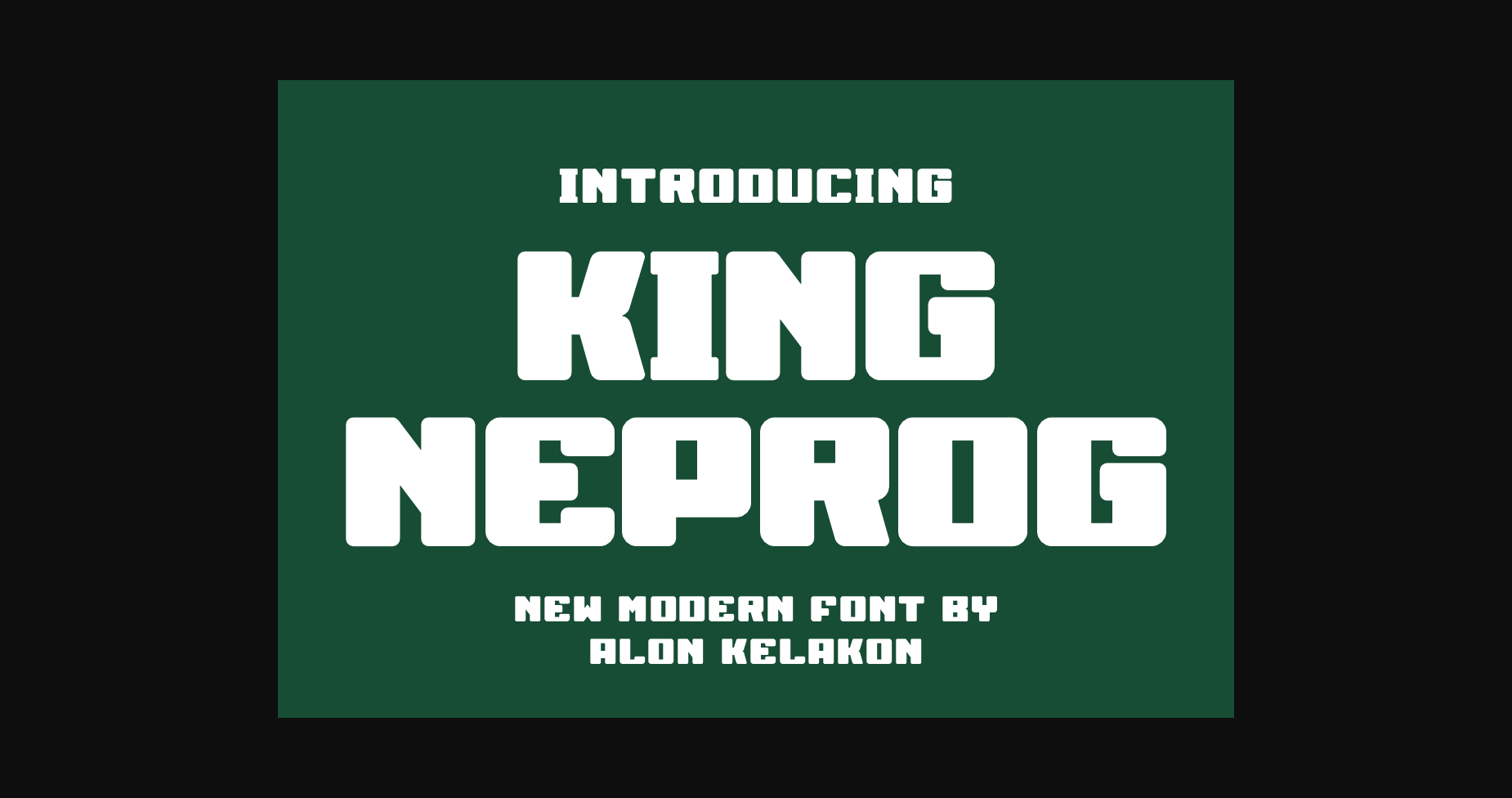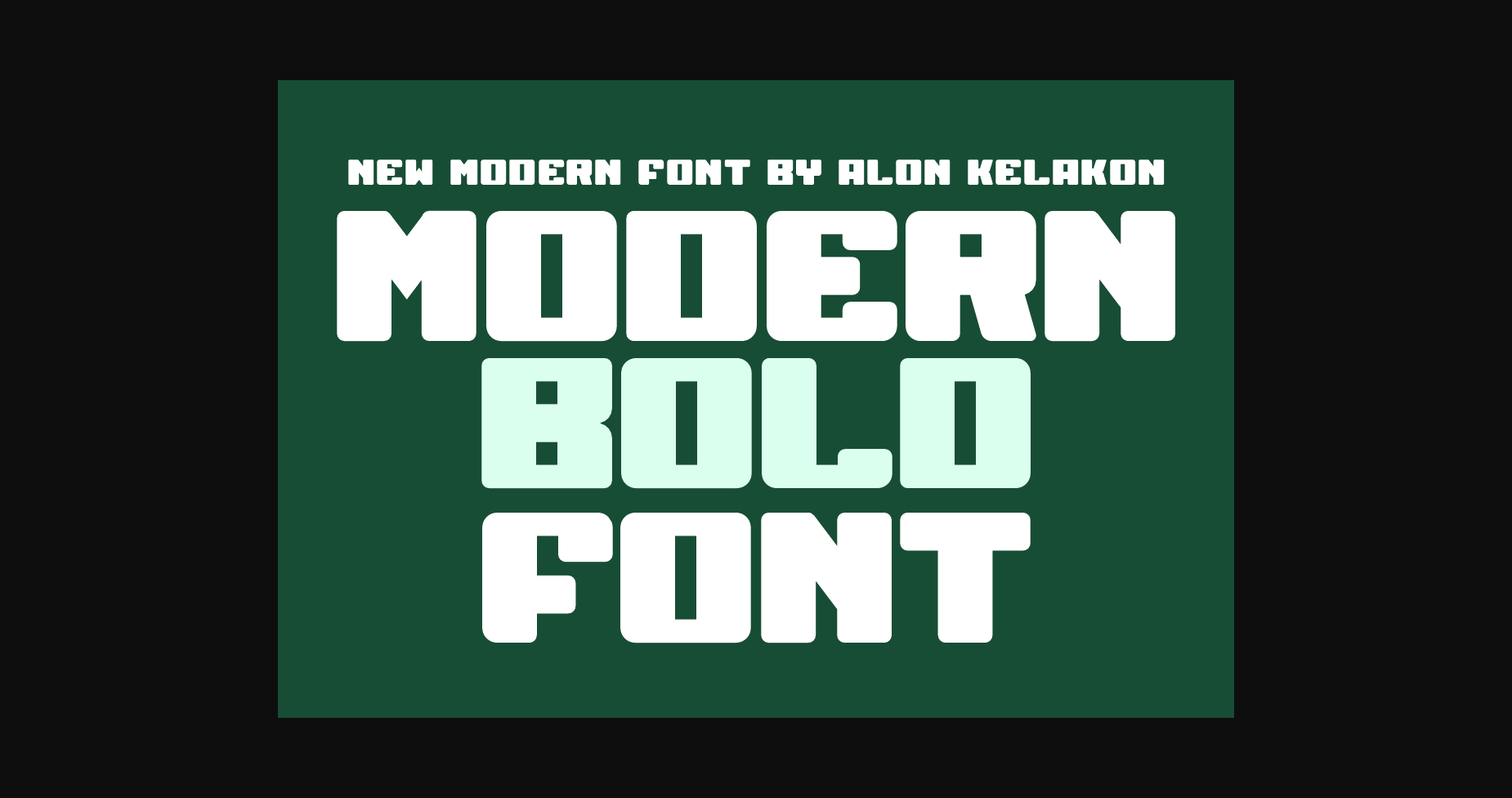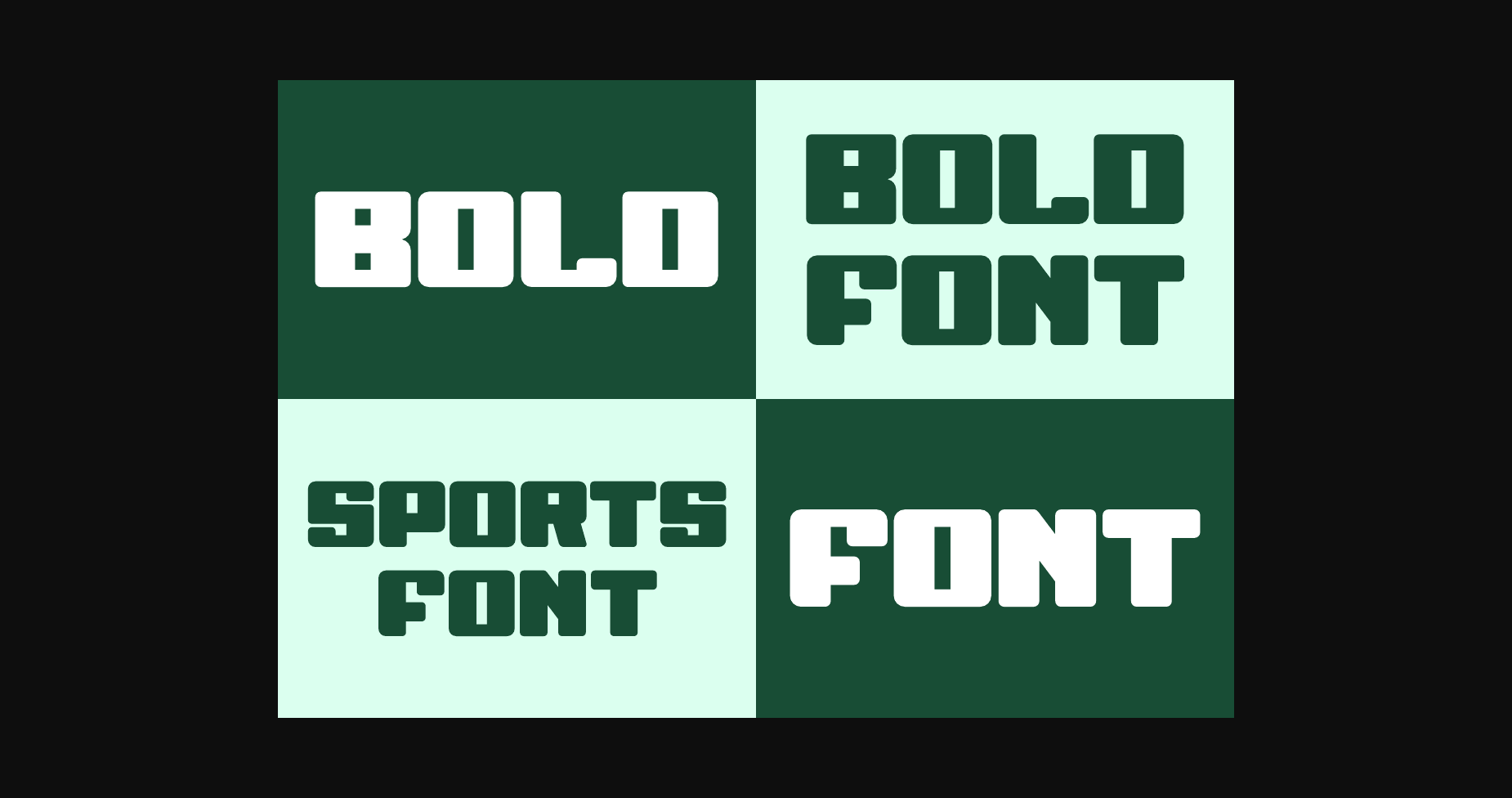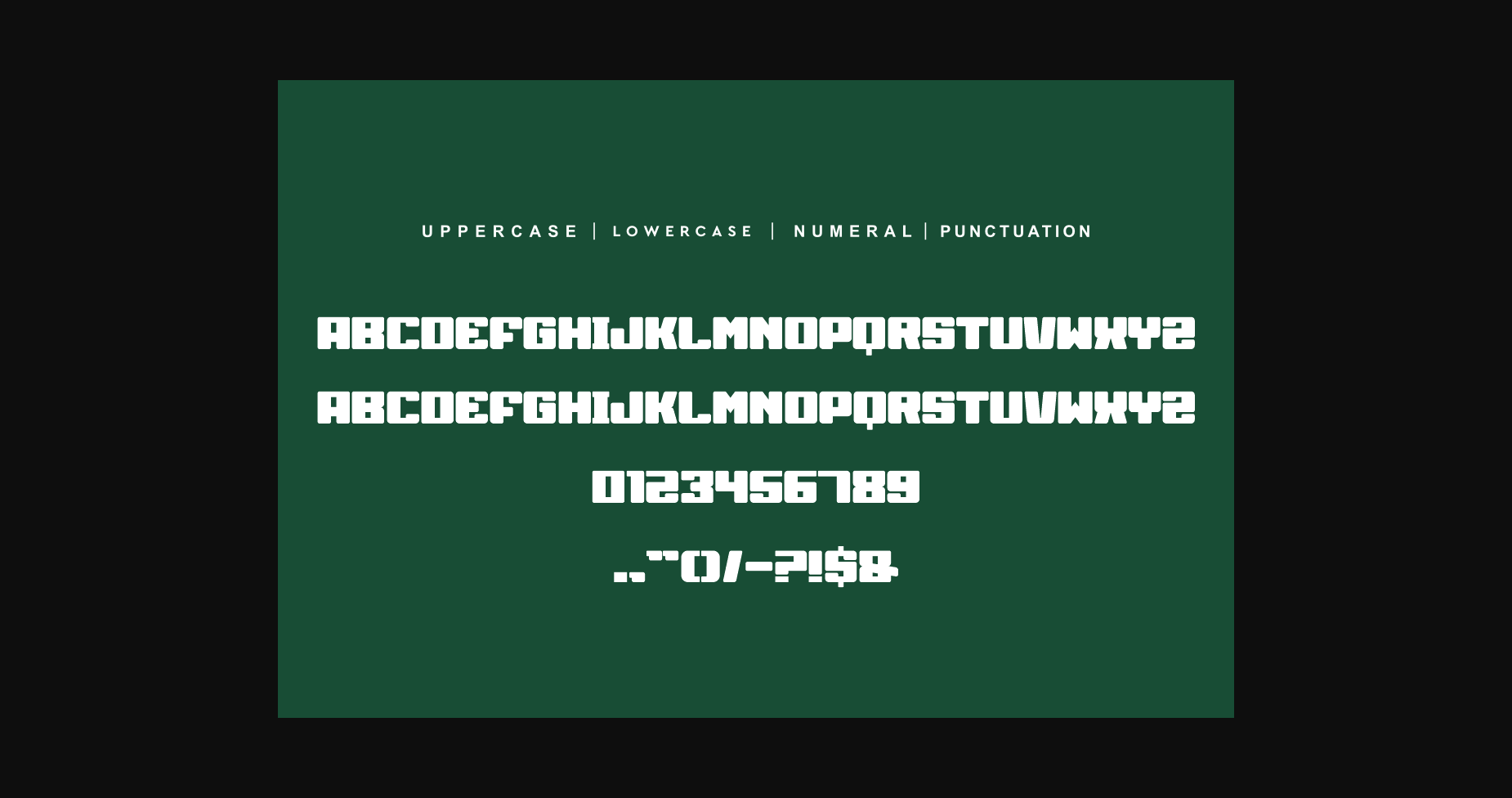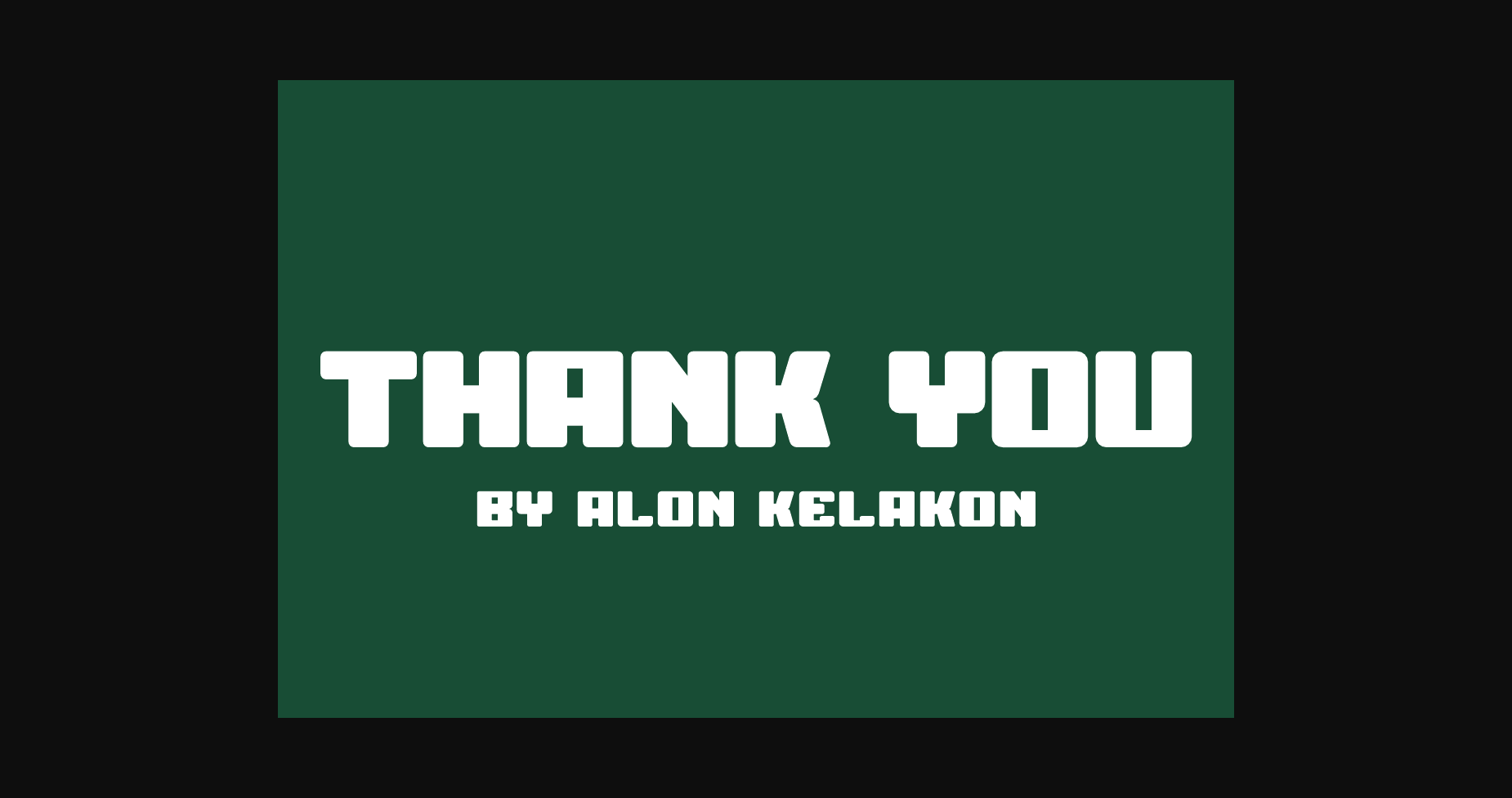
HomeSans Serif FontsKing Neprog Font Sans Serif Fonts King Neprog Font FacebookXPinterestWhatsApp 1 of 7 ... King Neprog Font Poster 2... King Neprog Font Poster 3... King Neprog Font Poster 4... King Neprog Font Poster 5... King Neprog Font Poster 6... King Neprog Font Poster 7... About King Neprog Font is unique sans serif font. Ready to use for your design like labeling, clothing, movie scenes, poster, movie title, gigs, album covers, logos, and much more. DOWNLOAD NOW People also explored Manthesy Font Satisfied Font Just Sorry Font Klamber Satisfaction Font Candy Gum Font Mosaic Font Love Sunflower Font Sunday Font Lamoureux Font 276 0 TagsKing Neprog Font Previous articleDefbad FontNext articleAdvanced Font LEAVE A REPLY Cancel reply Comment: Please enter your comment! Name:* Please enter your name here Email:* You have entered an incorrect email address! Please enter your email address here Website: Save my name, email, and website in this browser for the next time I comment. Personal Use Free Eva Personal Use Free Read more about this font Hysteria Santa Personal Use Free Read more about this font Nulshock Bold Personal Use Free Read more about this font Winter Soldier Personal Use Free Read more about this font BLOG Using Fonts in Digital Marketing: Tips to Strengthen Your Brand Identity In the realm of digital marketing, every visual element plays a crucial role in shaping a brand's identity, and fonts are no exception. The... How to Install and Use Fonts on Windows, macOS, and Web Projects The 10 Best Handwriting Fonts to Add Personality to Your Designs How to Cut Any Font on Cricut: Convert a Font to SVG (Free)